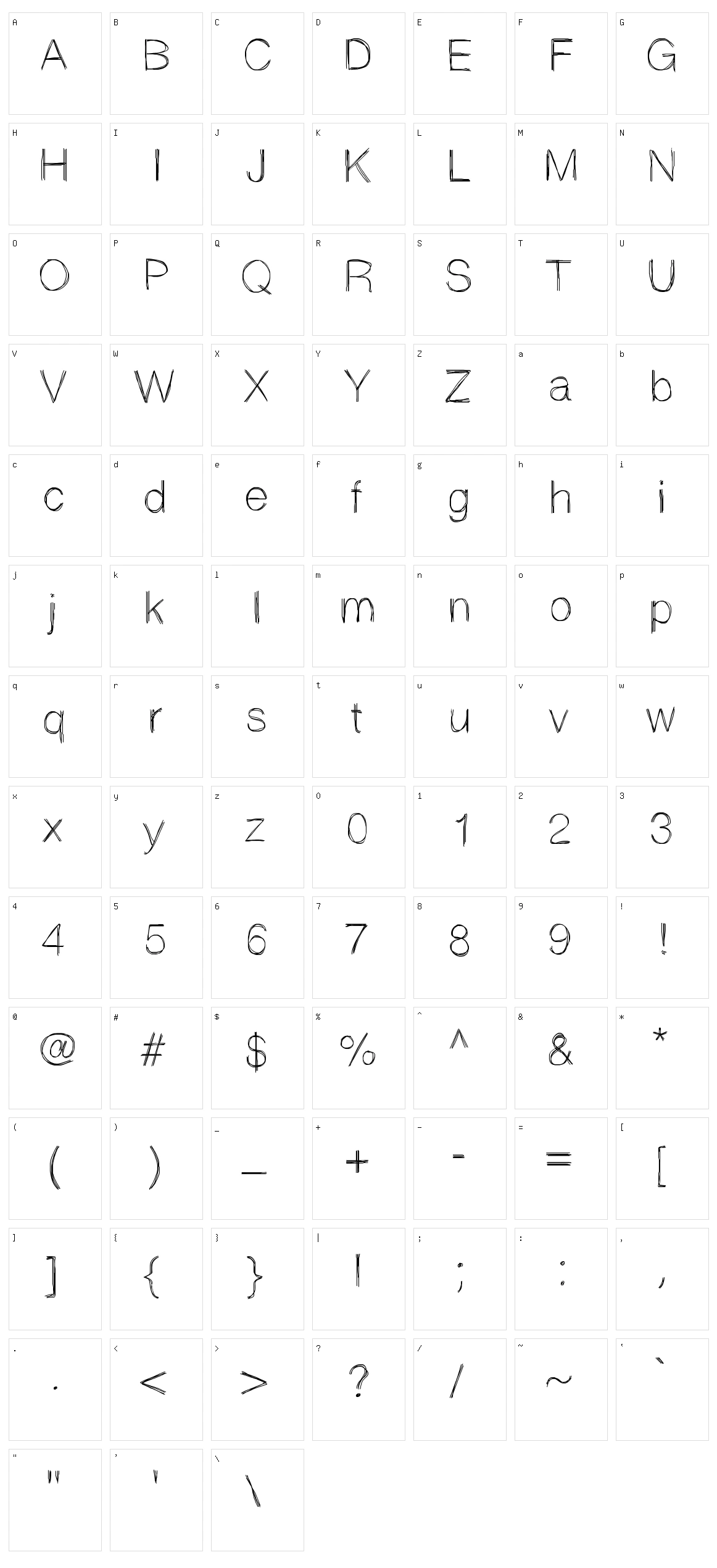
The free font Sketchtica is carefully designed by Millieri Comunicaci?, showcasing a thoughtful balance of creativity and usability and falls under the Trash font style. When you download the ZIP file, it contains only 76.26 KB of font files, making it lightweight and quick to download. Please review the license details below to understand permitted usage and distribution rights. If license information is not available, we recommend using this font for personal projects only or contacting the author directly for commercial usage permissions.